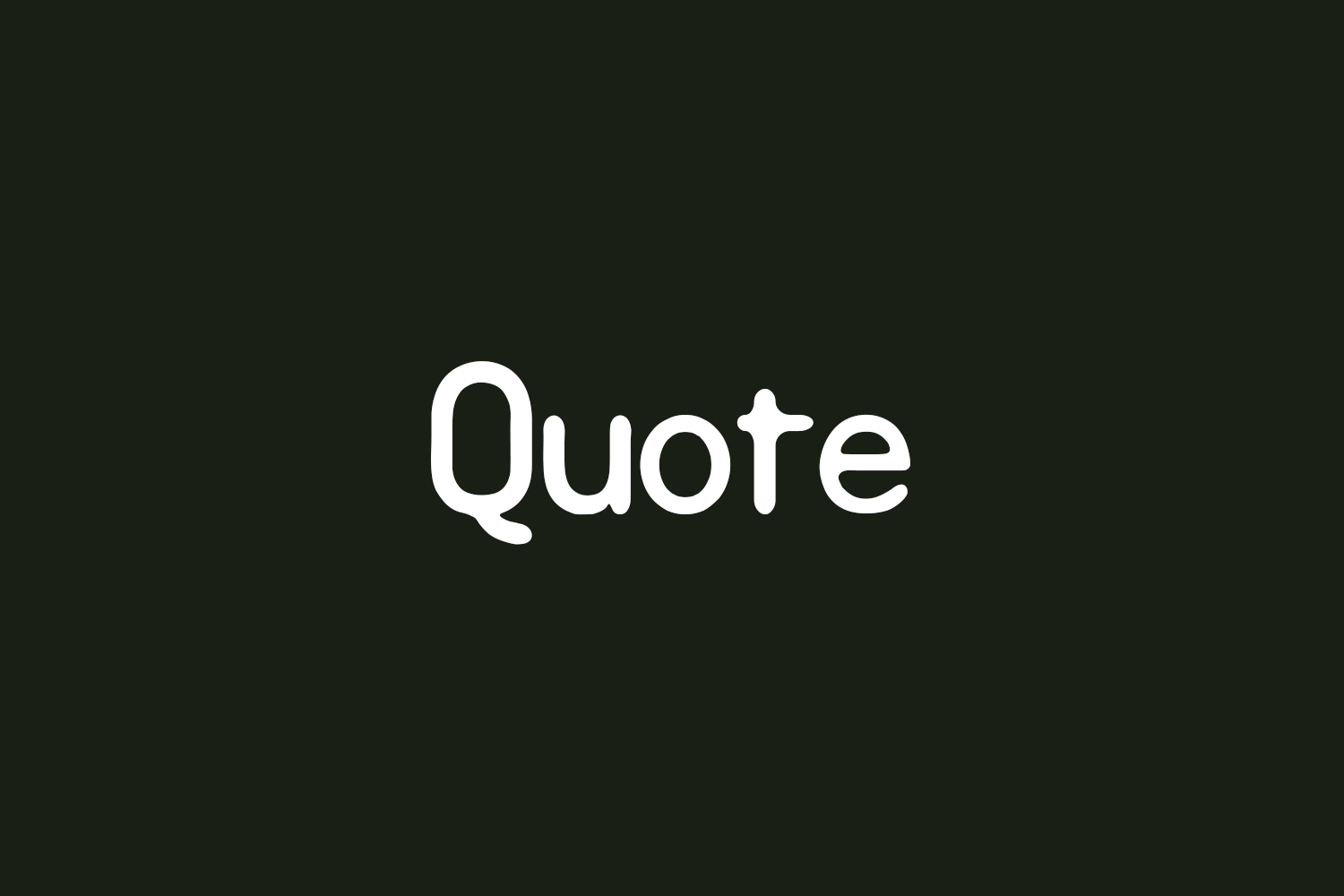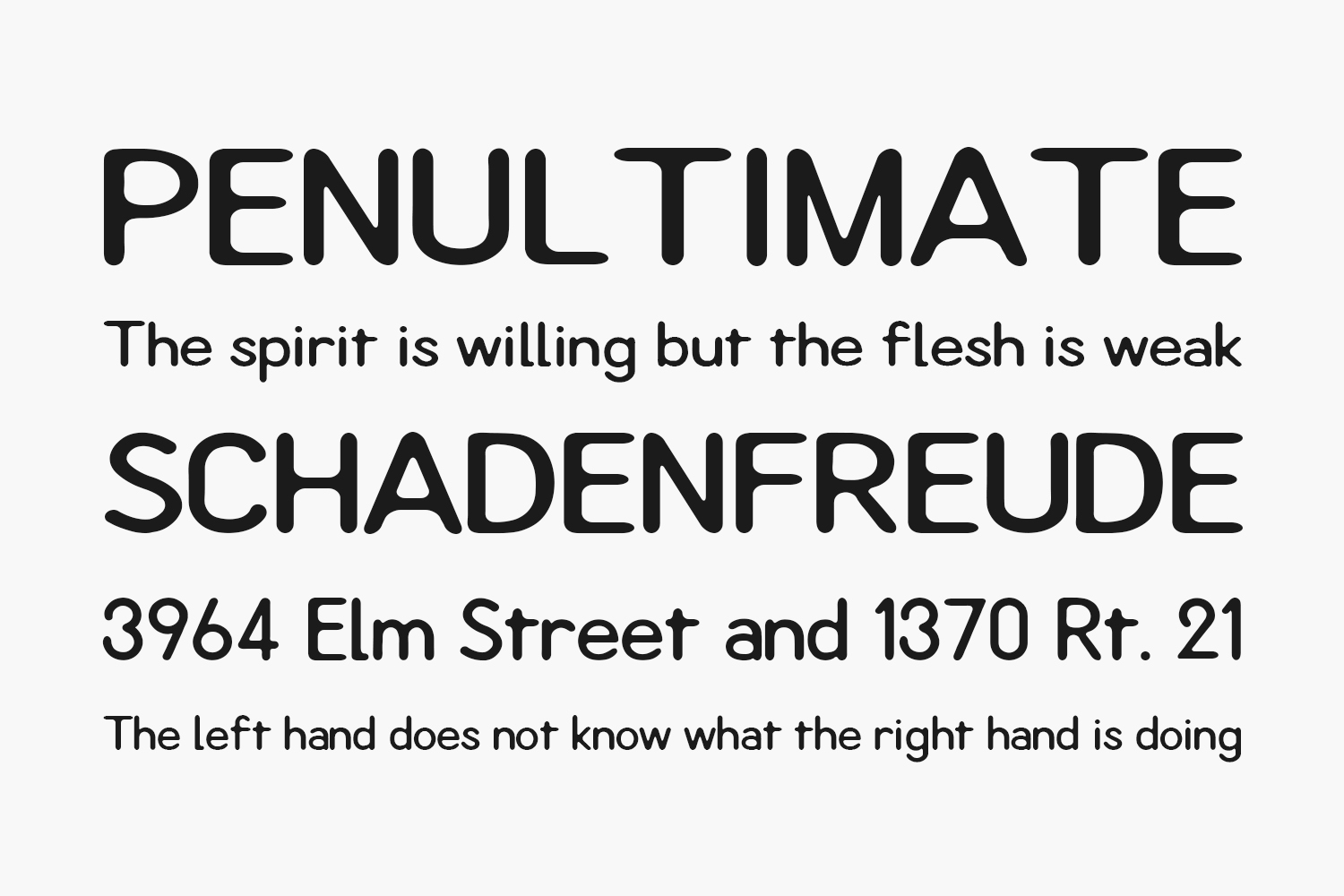
Quote Free Font is the new font that was rounded off the corners. Character changes with the scenes to be used. Quote Free Font is free for personal or commercial use.
Designed by Yosuke Masaki